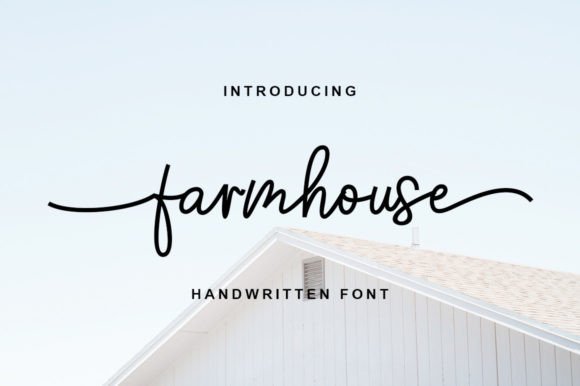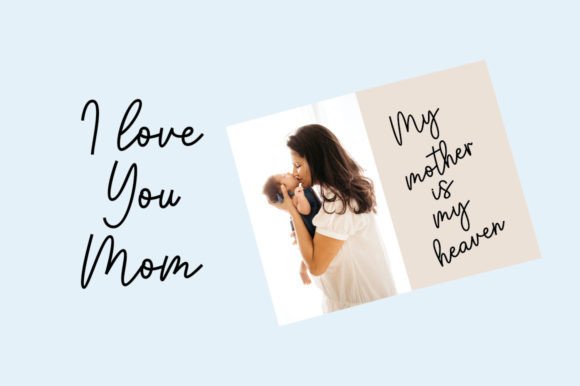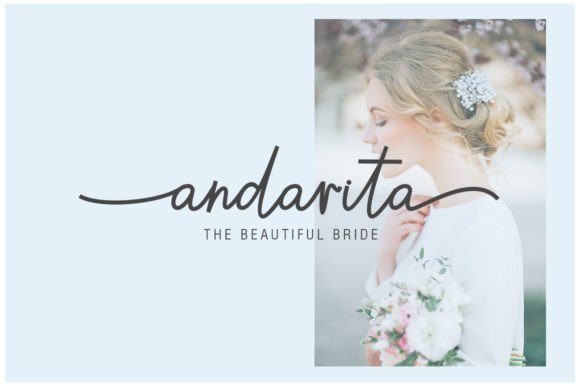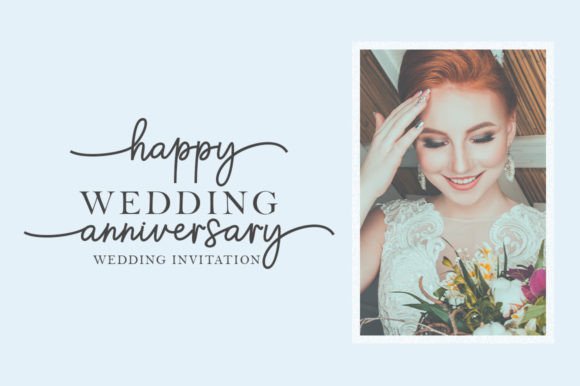
Farmhouse Font Font
About the Farmhouse Font Font
We are excited to introduce Farmhouse Font Font, a must-have typeface for any serious designer. Farmhouse is an authentic handwritten font with a romantic touch. Expertly designed to be a true favorite, this font has the potential to take your creative ideas to the highest level
Farmhouse Font’s romantic, handwritten style shines brightest in headlines, short text blocks, and branding applications where its charming personality can be showcased. It’s ideal for projects requiring a touch of rustic elegance—think wedding invitations, handcrafted goods packaging, or boutique logos. However, its less-than-optimal letter spacing makes it unsuitable for body text or lengthy paragraphs within UI.
For a balanced pairing, consider a clean sans-serif like Lato for body text, creating a sophisticated contrast between the casual script and the modern typography. Alternatively, a classic serif like Garamond could add a touch of traditional refinement, complementing Farmhouse Font’s inherent romanticism. Avoid pairing it with overly bold or geometric fonts, which might clash with its delicate, handwritten feel.
The overall personality of Farmhouse Font is best described as friendly, approachable, and charmingly rustic. Its delicate strokes and slightly uneven lettering convey warmth and authenticity, making it a great choice for brands focused on handmade products, natural beauty, or heartwarming events.